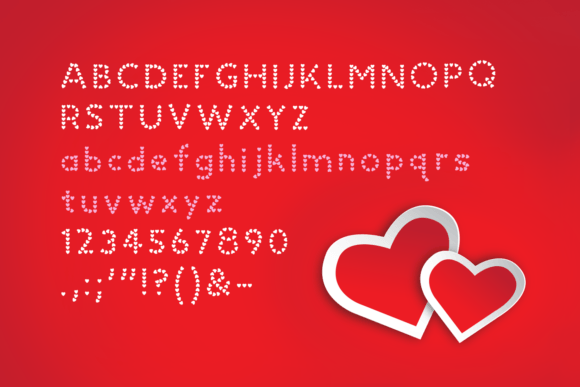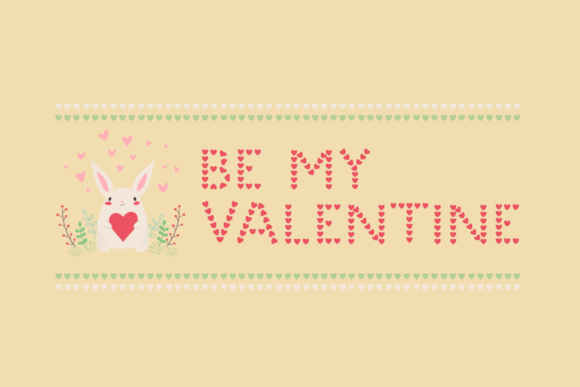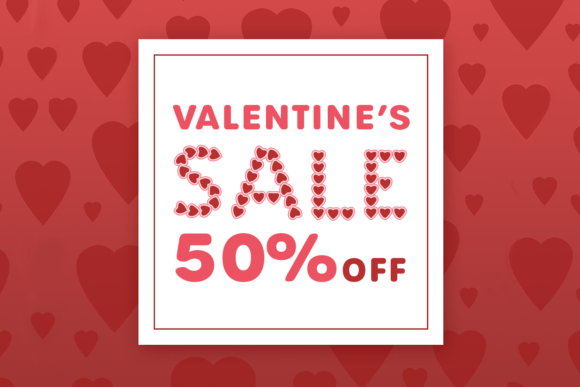
Introduction to Heartsy Font Font
Fonts play a crucial role in design, and the Heartsy Font font is a typeface that brings both character and versatility to any project. Whether you’re working on a branding project, a website, or a print design, the Heartsy Font font offers a unique style that can elevate your work.
Heartsy is a charming and playful display font featuring tiny hearts scattered throughout each letterform.
Perfect for adding a touch of love to any design project .
Key Features of Heartsy Font Font
Why Choose Heartsy Font Font?
The Heartsy Font font is more than just a typeface – it’s a design tool that helps you communicate your message with style and clarity. Its unique character set and versatile design make it suitable for a wide range of applications, from elegant invitations to bold headlines.
With its carefully crafted letterforms and balanced proportions, the Heartsy Font font ensures readability and visual appeal across all mediums.
What makes Heartsy Font font special?
The Heartsy Font font stands out with its unique design, exceptional readability, and versatility across various design applications.